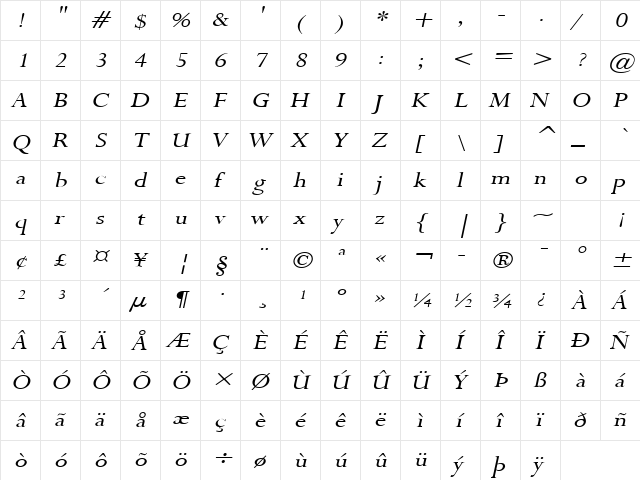
Rapid Wide Italic
Design Context for Rapid Wide Typeface
Rapid Wide is a composed and adaptable typeface that performs quietly and consistently across a wide range of design contexts. The dynamic lean of this cut emphasises speed and emphasis in any layout.
Pro Tip: Use Rapid Wide for emphasis, pull quotes, and subheadings where its slanted energy can add rhythm to the layout.